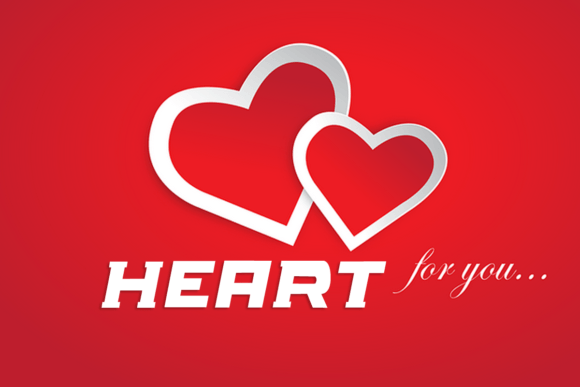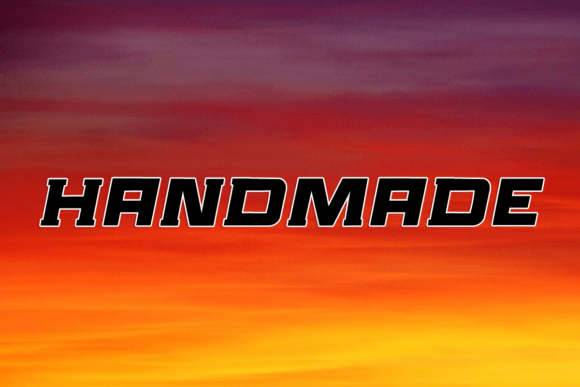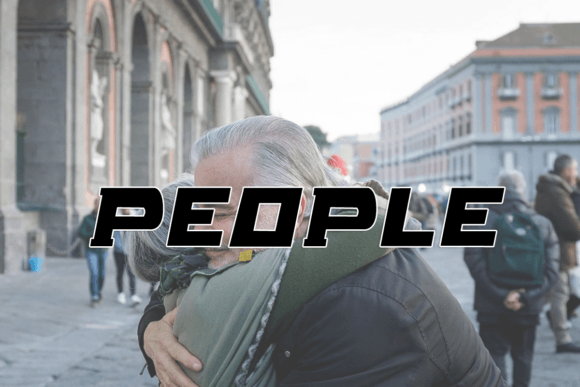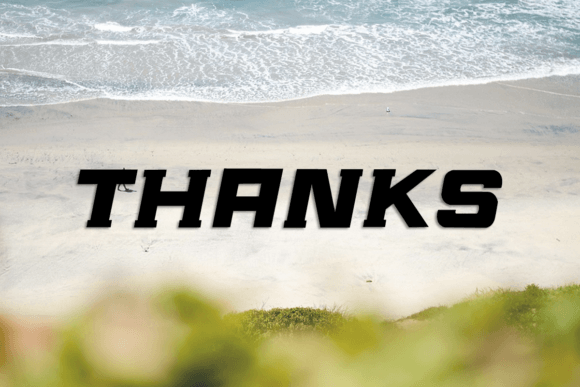
Unleash Your Creativity with Black Font
Have you ever stared at a blank page, searching for the perfect font to bring your idea to life? That’s exactly what happened to me when I was designing a new product packaging for a client. I wanted something that would make a statement, something that would scream ‘look at me!’ in a crowded market. And then, I found it – Black Font.
Black Font is an exclusive display font that’s designed to make your projects stand out from the crowd. Its bold and chubby characters are perfect for product packaging, branding projects, magazine covers, social media, or just used to express in a unique way. As a designer, you know how valuable it is to have a font that can elevate your work and make it truly unforgettable.
Key Features of Black Font
- Unique Characteristics: Unique, modern design with clean lines, perfect for digital and print media
Designer Review: Black Font
As a designer, I was excited to dive into “Black Font” and see what it had to offer. Overall, I found it to be a solid, no-frills font that gets the job done. ✨
- Neutral aesthetic: Black Font has a clean and minimalist look that works well in a variety of contexts.
- Ease of use: The font is highly legible, even at small sizes, making it easy to read and use.
- High contrast: The black color of the font provides high contrast with most backgrounds, making it easy to see.
- Lack of personality: Black Font is a very straightforward font with no real personality or flair.
- No bold or italic variants: This can make it difficult to create emphasis or add visual interest to text.
- Not suitable for creative projects: Due to its simplicity, Black Font may not be the best choice for creative or artistic projects.
Overall, I would say that Black Font is a solid choice for everyday use, but it may not be the best option for more creative or visually-driven projects.